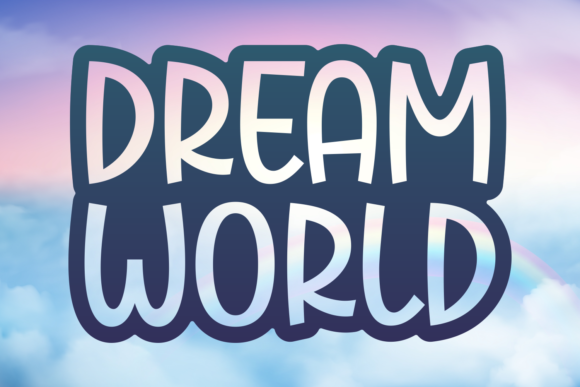
Unleash a realm of limitless imagination with Dream World Font, the ultimate display font, meticulously crafted by Creative Fabrica Fonts, awaits to transform your creative horizons. Experience the fusion of simplicity and playfulness in a single font, designed to ignite your imagination and captivate your audience. Step into a world where letters dance with grace, harmonizing perfectly to create visual masterpieces that leave a lasting impression.
Dream World Font is not just a font; it's a gateway to a world of endless possibilities, where your designs take flight and your imagination knows no bounds. Harness the versatility of this remarkable display font to craft designs that speak volumes, leaving your audience spellbound. From eye-catching posters that demand attention to enchanting invitations that spark curiosity, Dream World Font is your trusted companion, ready to elevate your creations to new heights.
Embrace the vibrant personality of Dream World Font, seamlessly compatible with Cricut and Silhouette cutting machines, empowering you to bring your designs to life with unparalleled precision. Unleash your creativity and explore a universe of design possibilities, transforming your projects into captivating works of art. Dream World Font is more than just a font; it's an invitation to embark on a creative odyssey where innovation and inspiration converge.
Visualize the impact of your designs adorned with Dream World Font, captivating your audience with its charm and elegance. Imagine the allure of posters that leap off the page, commanding attention with their vibrant energy. Envision invitations that evoke a sense of wonder, inviting recipients to embark on a journey of discovery. With Dream World Font, the ordinary becomes extraordinary, as your designs transcend the realm of the mundane and enter the realm of the truly exceptional.